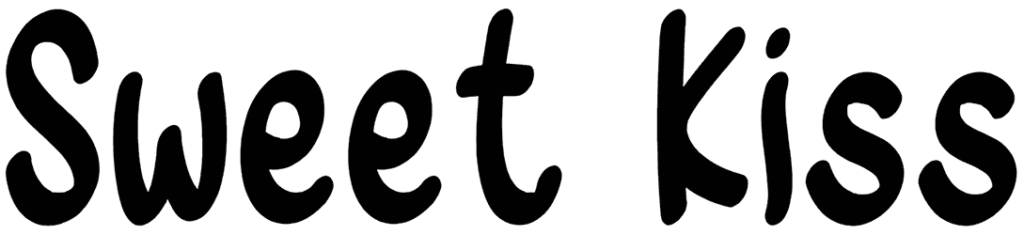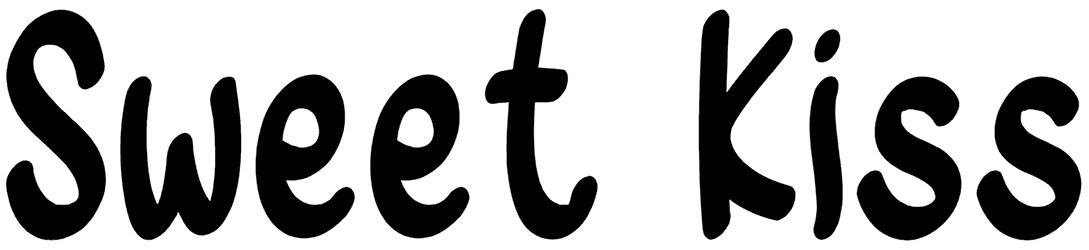
Sweet Kiss Font
Being minimal and cute can be a nice answer in a lot of subjects, and this handwritten font, named Sweet Kiss, is able to do it. This script font with bold and readable letterforms is an entertaining pickup for many short or long contexts. Set Sweet Kiss on books, posters, ads, Instagram posts, or the like, and be sure, it’s going to be delightful.
New fonts that you can use for writing, design and other needs.